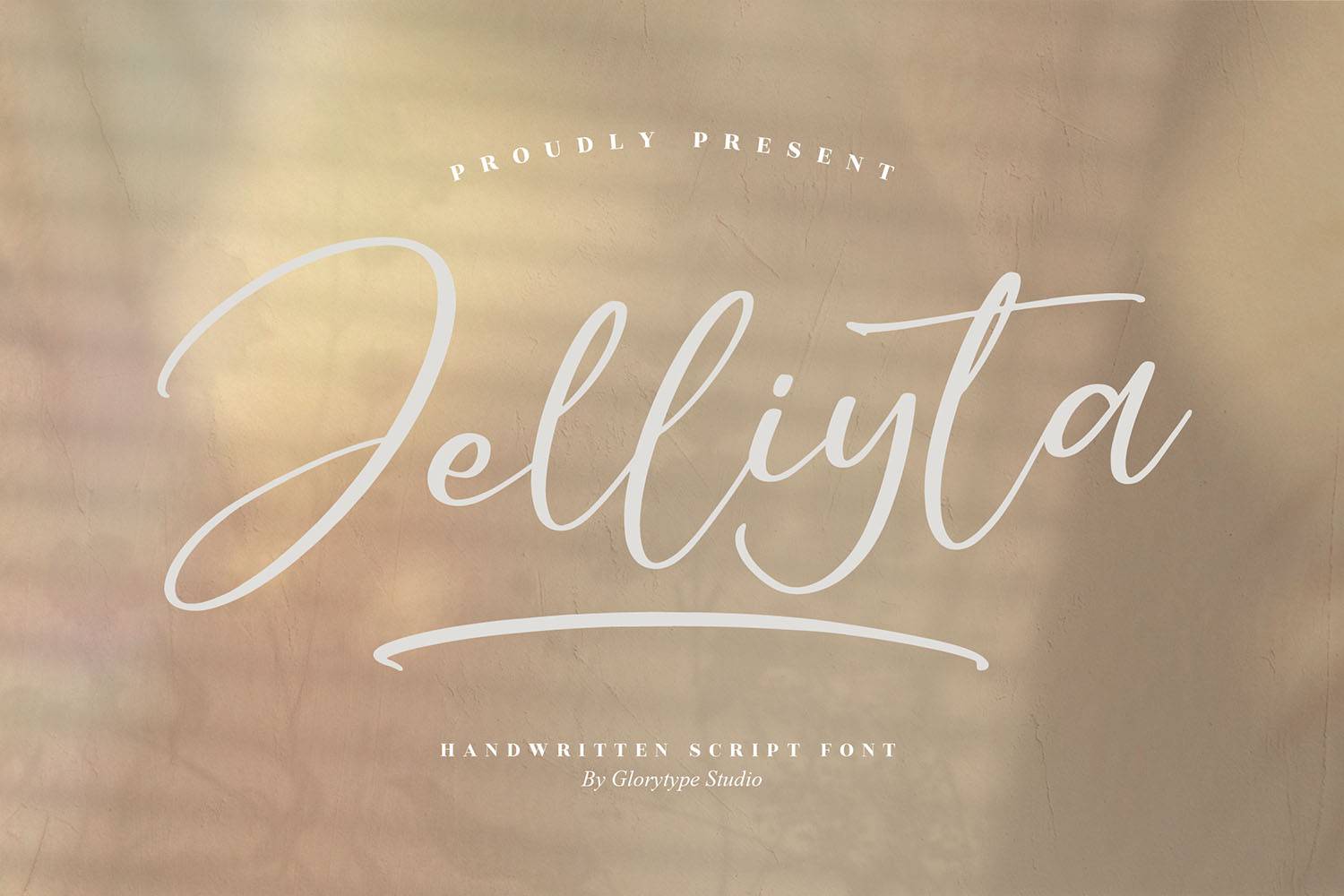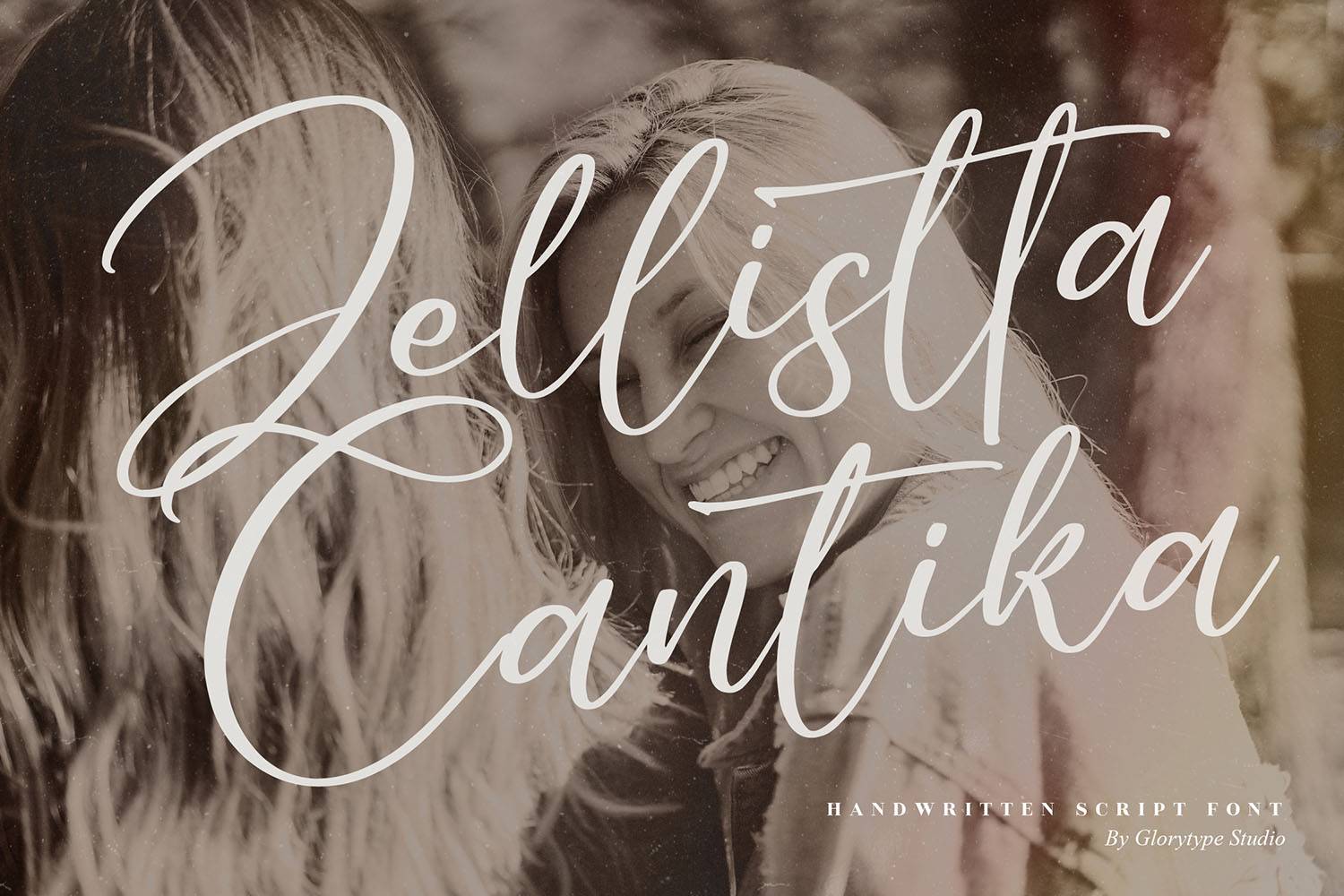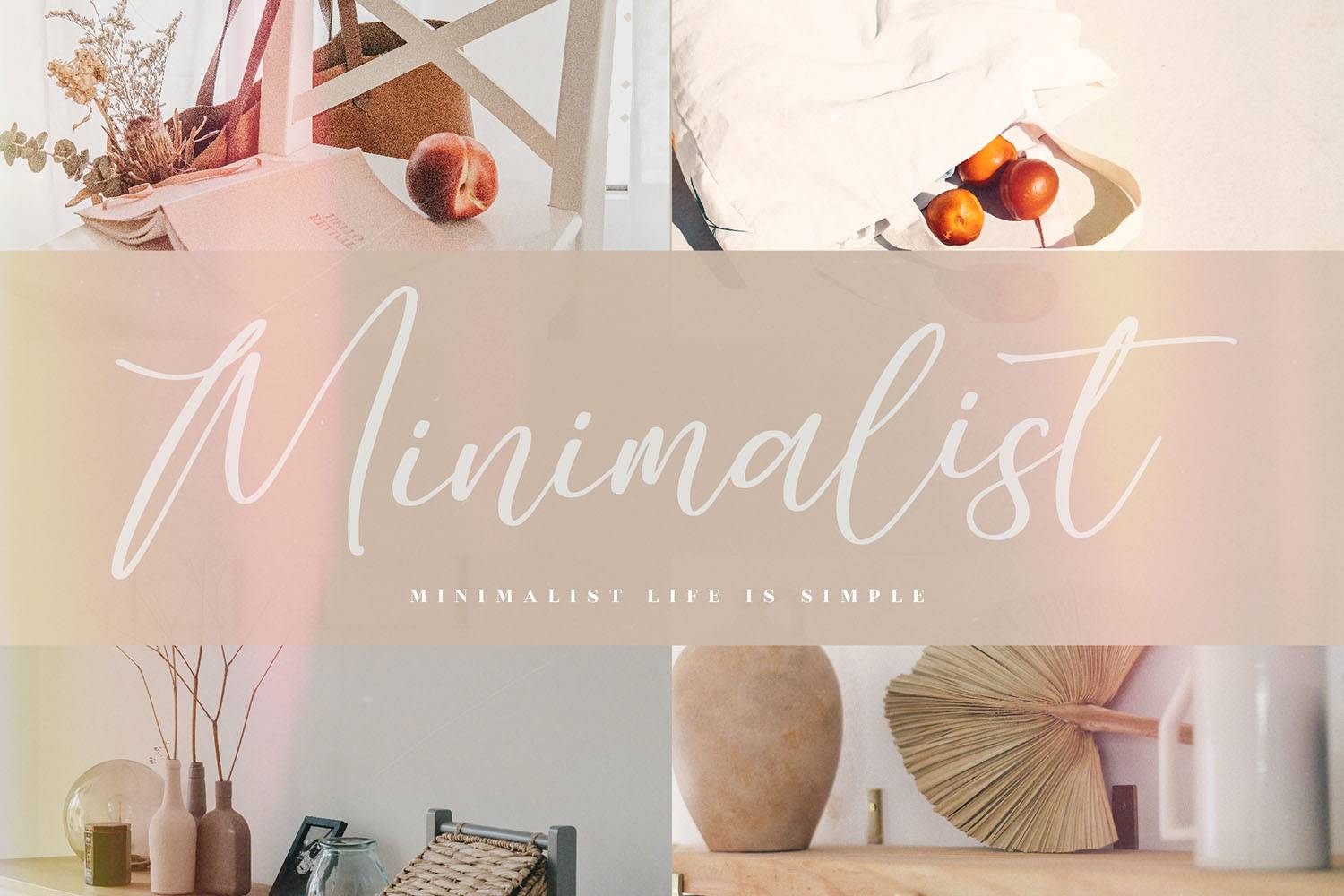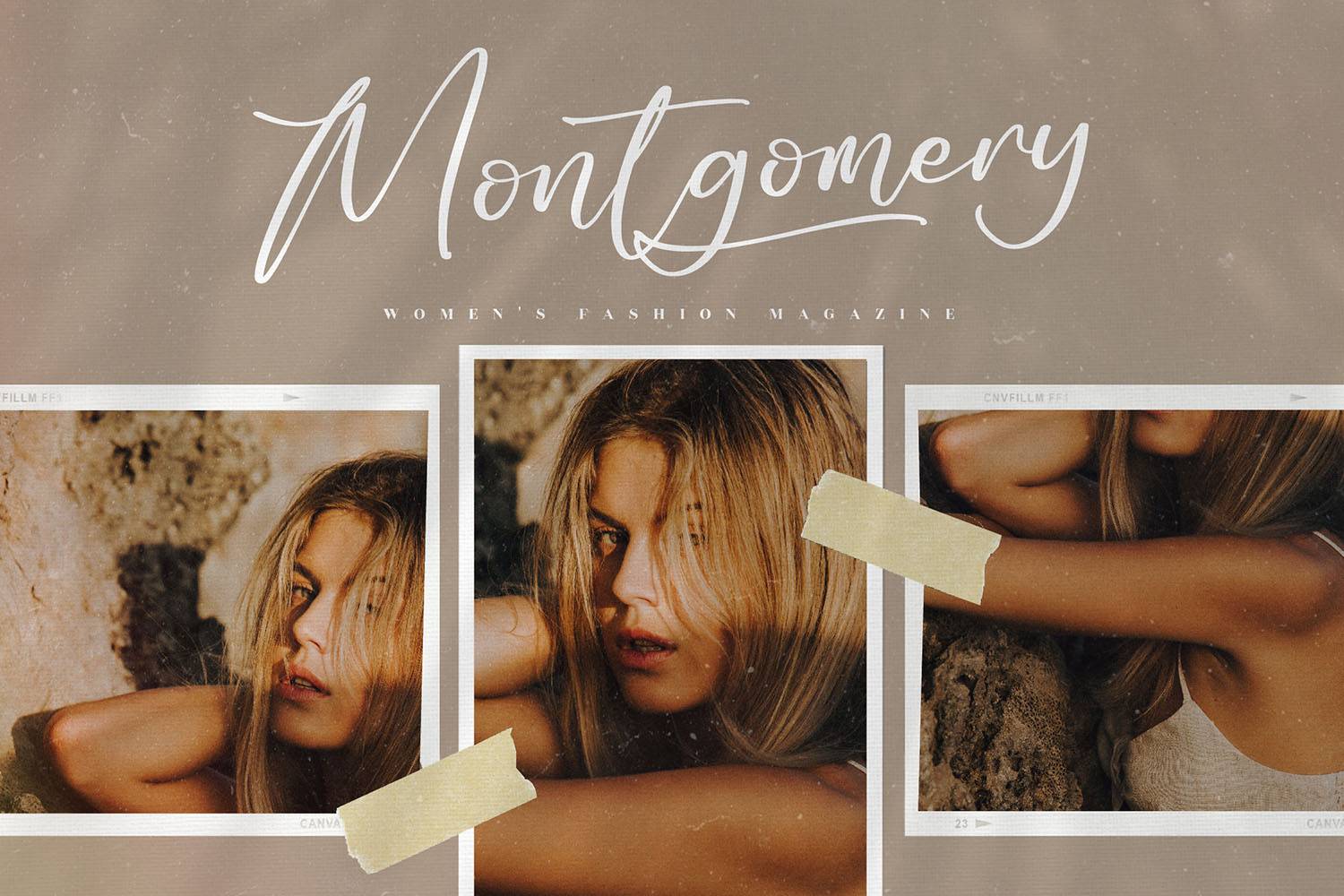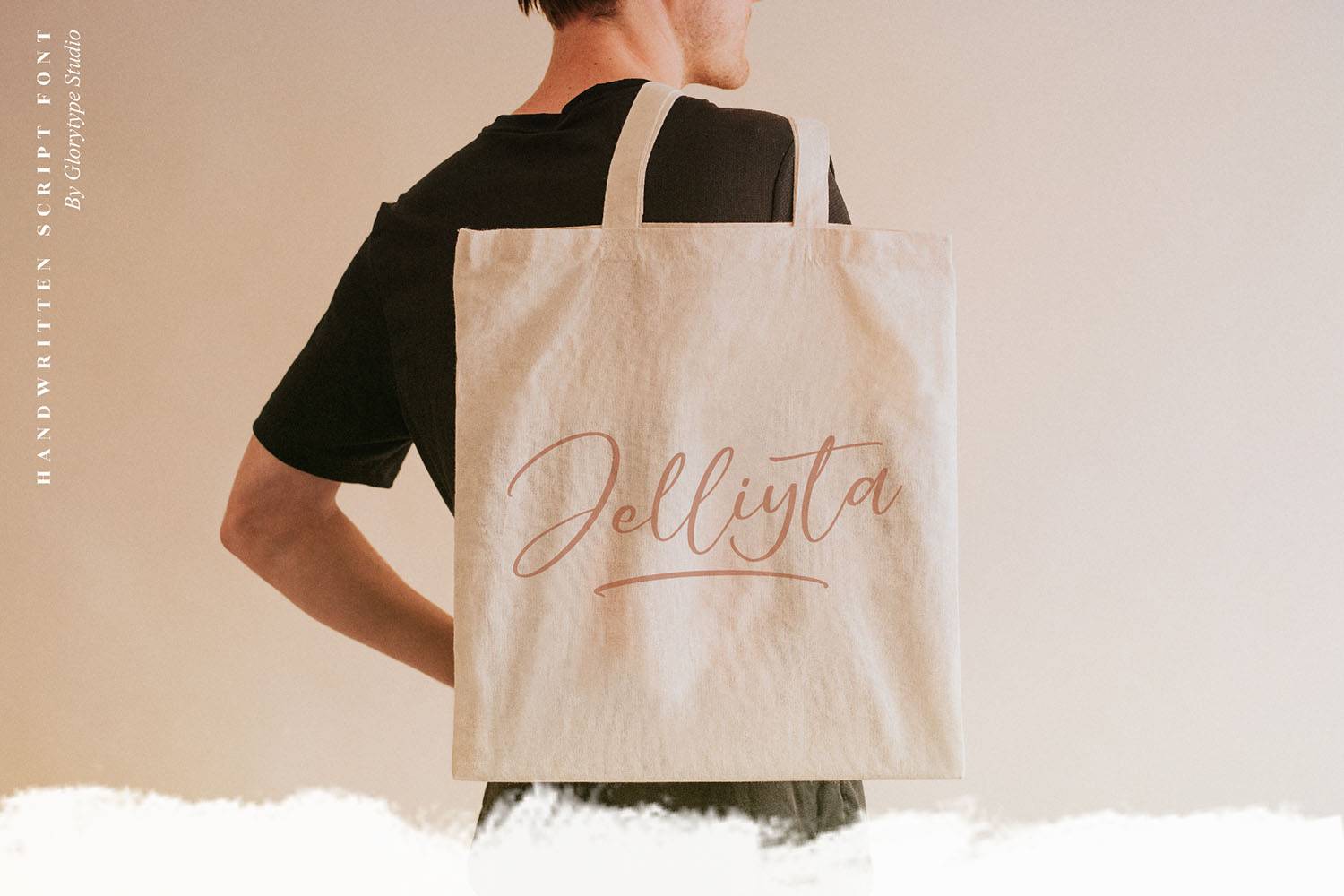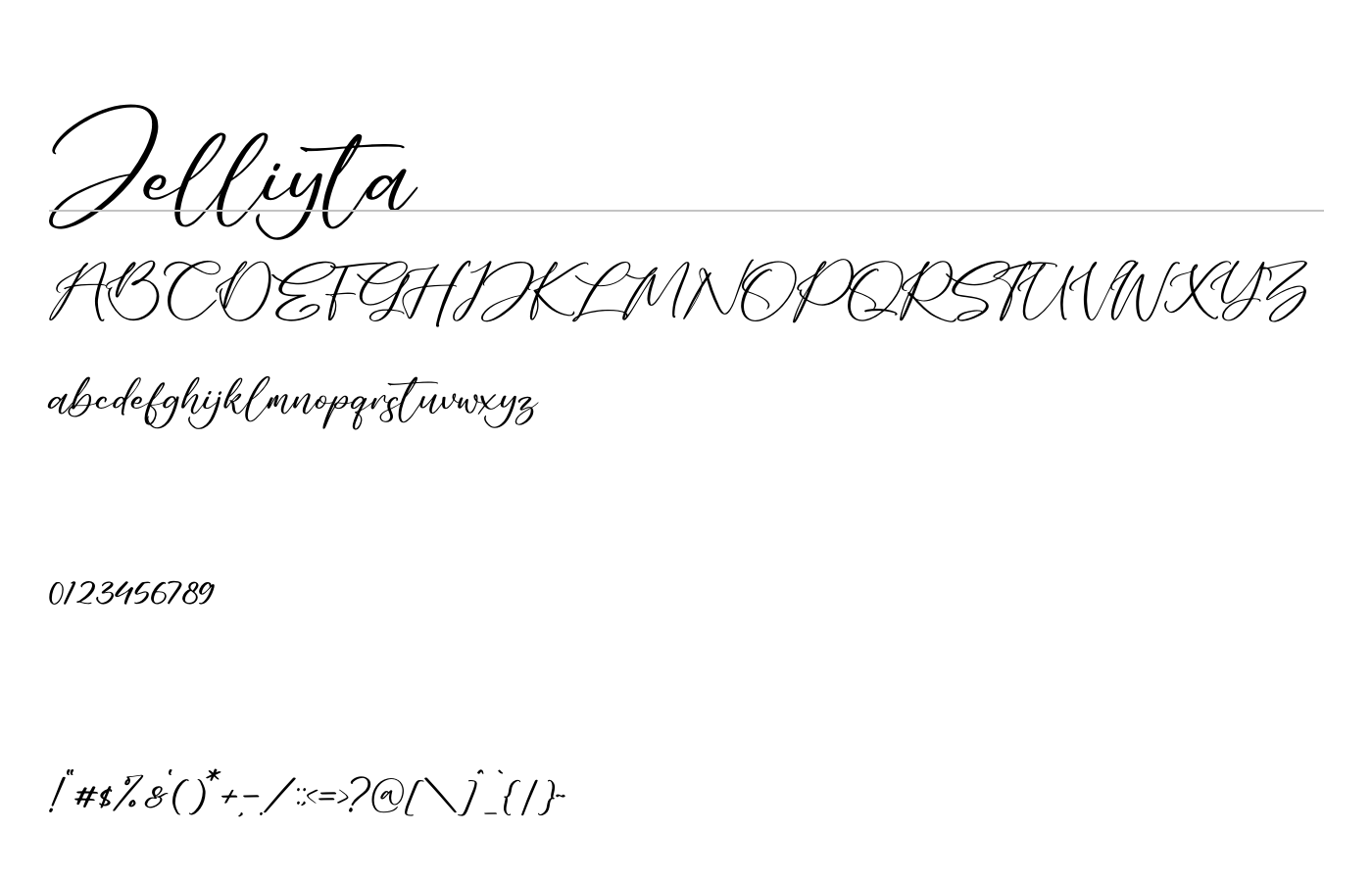
Jelliyta is an elegant script font featuring delicate, flowing strokes with a modern, handwritten feel. Its thin, graceful lines and refined curves make it ideal for sophisticated branding, wedding invitations, and stylish logos where a personal, artistic touch is desired. This font works best in large sizes to showcase its intricate details and enhance a luxurious, feminine aesthetic.
Jelliyta Font
About Jelliyta Font